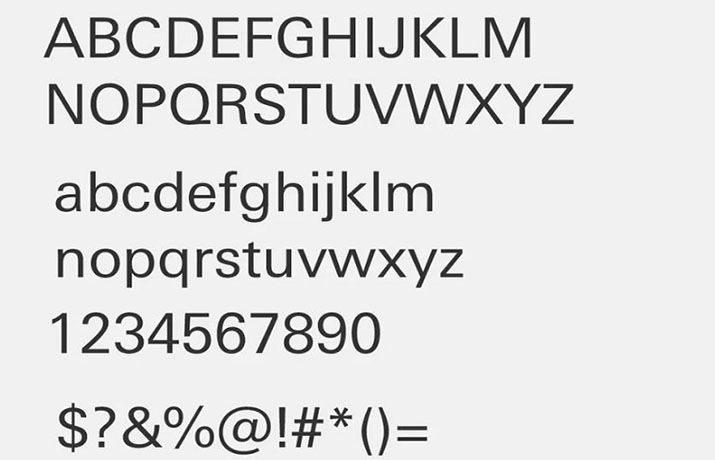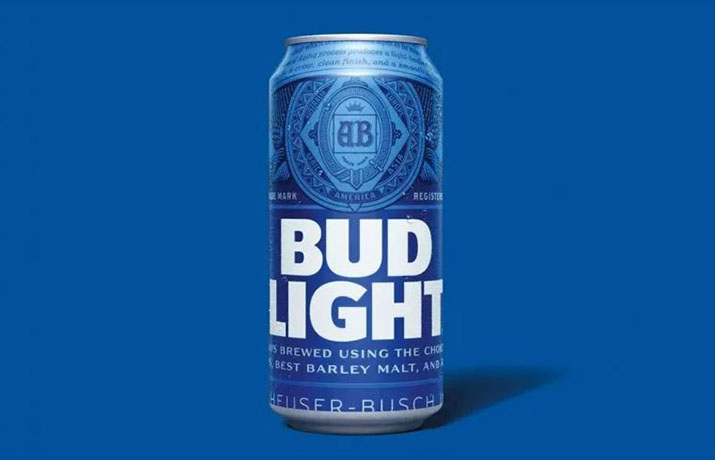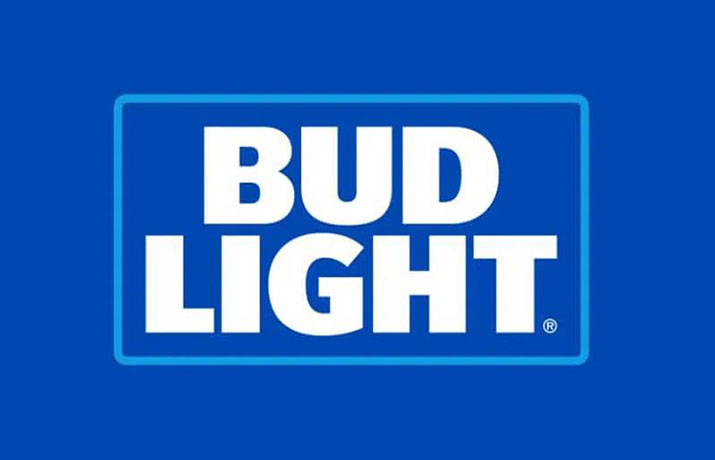
Bud Light Font is a logo typeface basically, Bud Light is a beer brand that manufactures various drinks including Seltzer and Brewing.
Many people like it because of its natural ingredients and natural taste. Therefore, it is becoming popular worldwide. And different designers look forward to a font family that uses it for their products.
“The Bud Light Company uses a font for its product packaging and website content. It’s called Universe Next, a great sans-serif font family for official work.”
It was designed by Adrian Frutiger and first released in 2010 by Linotype Design Studio. The Universe Next is available in two styles including Regular and ultra-light.
| Style: | Logo, Bold, Display |
| Font Designer: | Adrian Frutiger |